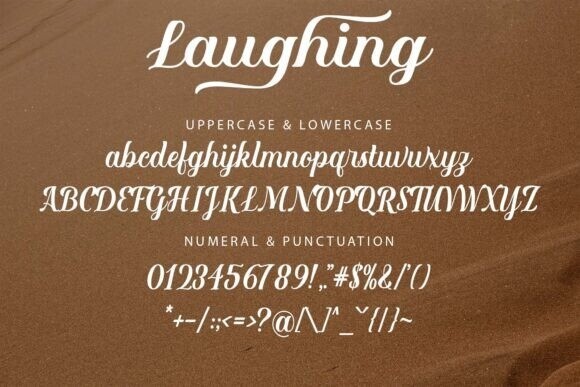
Laughing Font
Laughing Font, an elegantly fine-tuned font mingling sweetness with sophistication. This enchanting script font seamlessly breathes dynamic energy into your designs, invigorating your projects. “Laughing” effortlessly entwines playful charm with sensuous appeal, crafting a captivating equilibrium that enchants and stimulates. Engage your imagination with “Laughing”, a font whose delightful expressiveness truly mirrors the joy evoked by its name.